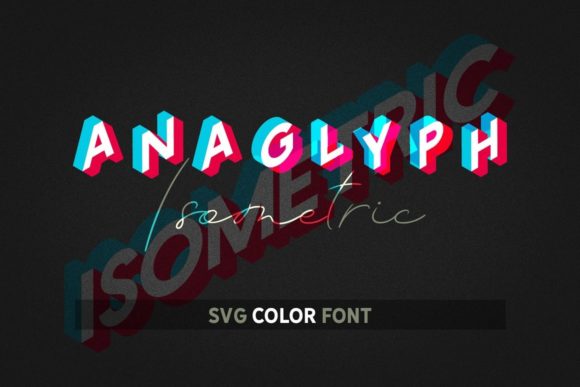
Discover Anaglyph Isometric, a captivating display font that takes you on a journey to the past, evoking feelings of nostalgia and modernism. Graphic Spirit, the mastermind behind this retro-chic font, has poured their creativity into creating a font that's both visually striking and delightfully versatile.
Step into a world of vintage flair with Anaglyph Isometric, a font reminiscent of classic arcade games and 80s aesthetics. This unique display font features a geometrically inspired design, with sharp angles and bold strokes that command attention.
This retro gem is perfect for those seeking a touch of nostalgia in their designs. Let your imagination soar as you explore the countless possibilities that Anaglyph Isometric presents. From eye-catching posters and flyers to retro-themed logos and branding, this font is your ticket to making an impact.
But Anaglyph Isometric doesn't stop at retro aesthetics; it seamlessly blends the past with the present. Its modern appeal makes it suitable for contemporary designs, adding a touch of vintage charm to menus, invitations, and social media graphics.
With Anaglyph Isometric at your fingertips, you'll find yourself effortlessly creating designs that resonate with audiences of all ages. Its timeless style ensures that your creations will remain relevant and captivating, standing the test of time.